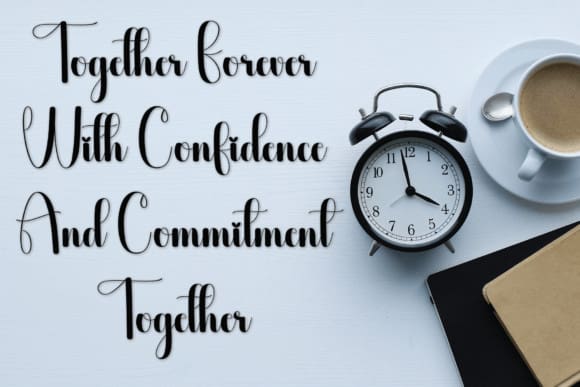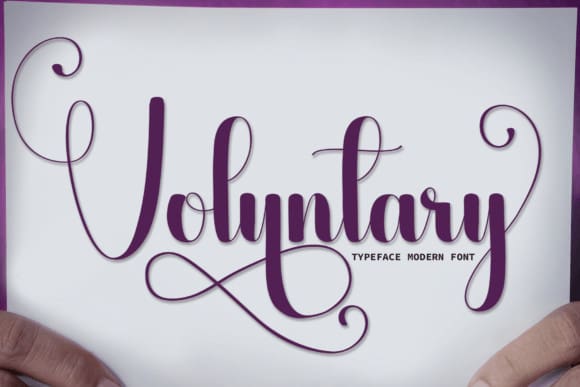
Voluntary Script Font
Voluntary Script Font is an elegant handwritten font. Its characters are perfect for wall displays, wedding invitations, social media post logos, advertisements, product packaging, product designs, labels, photography, watermarks, invitations, stationery, and any project that requires and elegant touch.